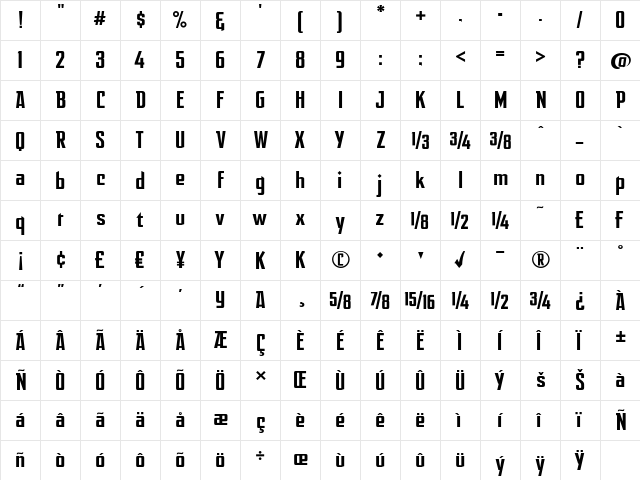
After Disaster Regular
Design Context for After Disaster Typeface
After Disaster offers clean, dependable letterforms without strong stylistic allegiance, making it a practical choice for designers who need flexibility.
Pro Tip: Pair After Disaster with a font of contrasting weight or personality to build a more expressive typographic hierarchy.